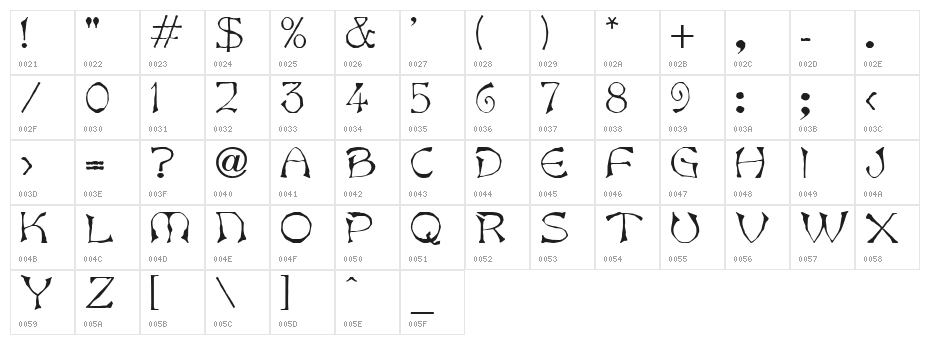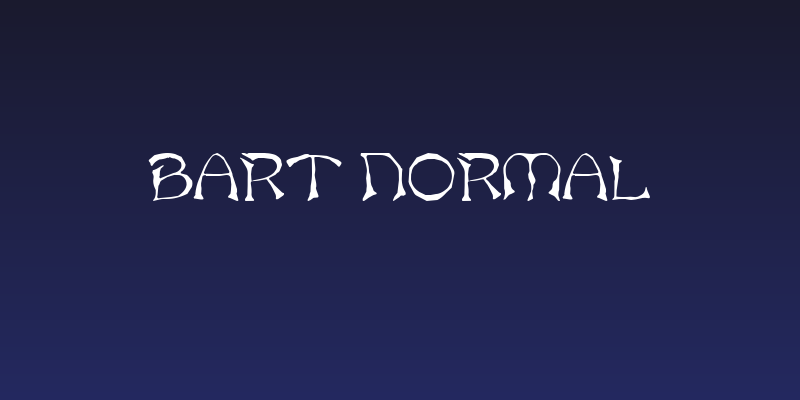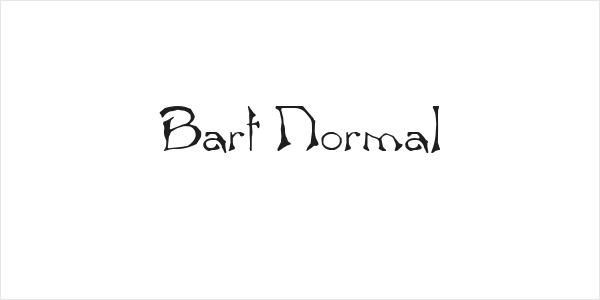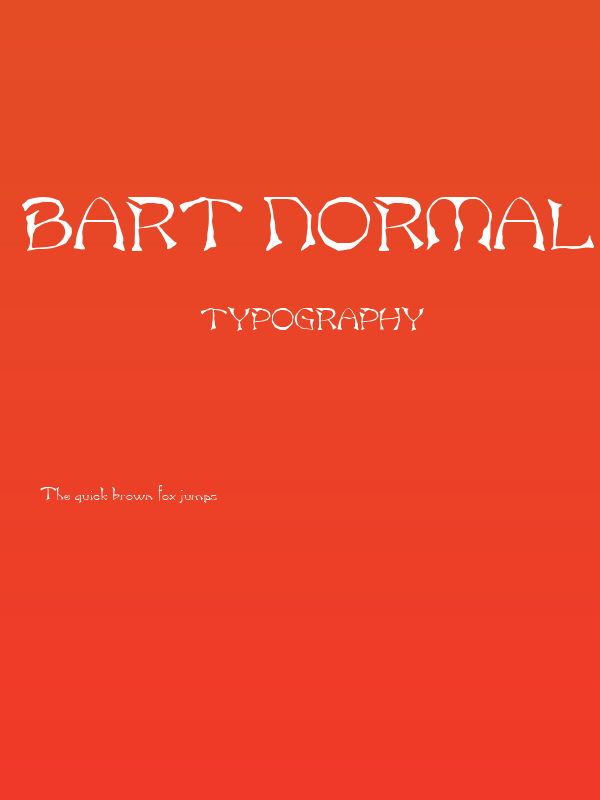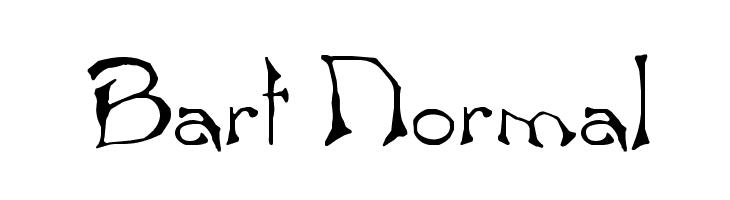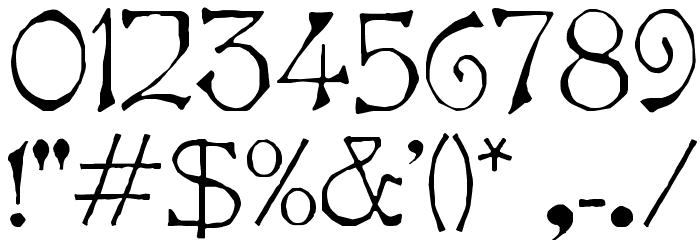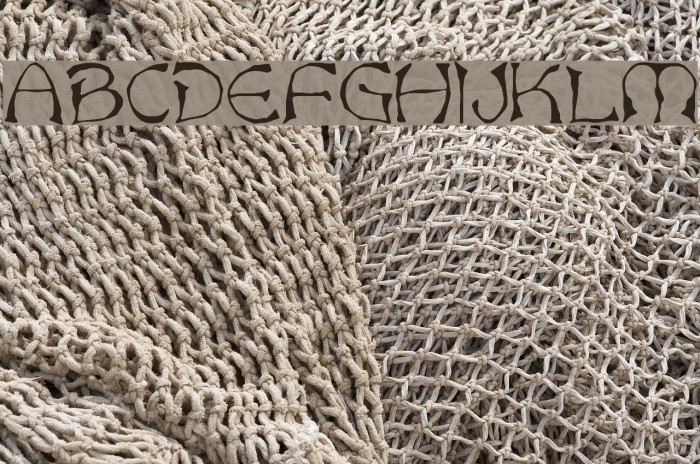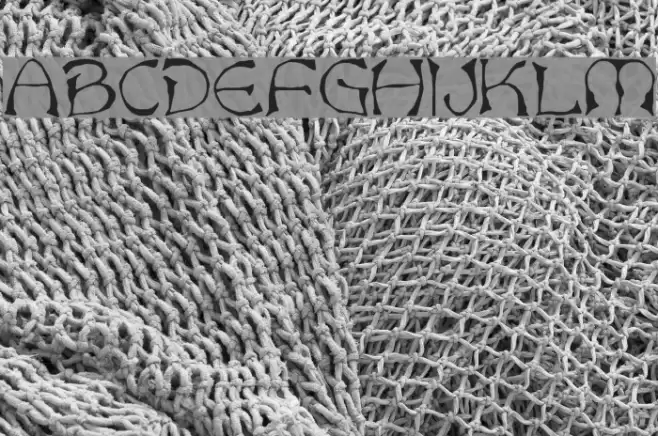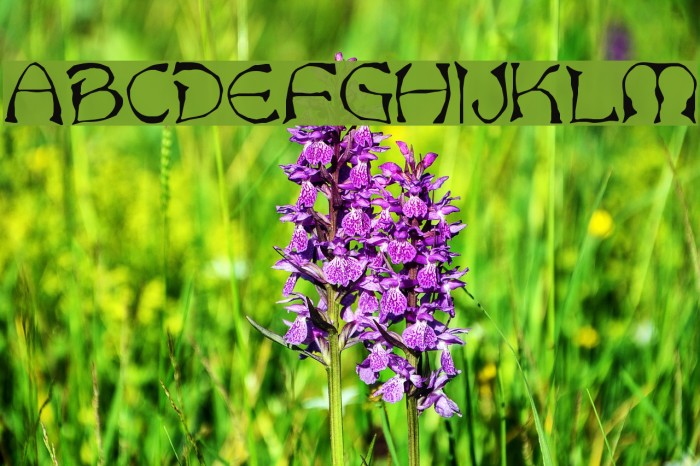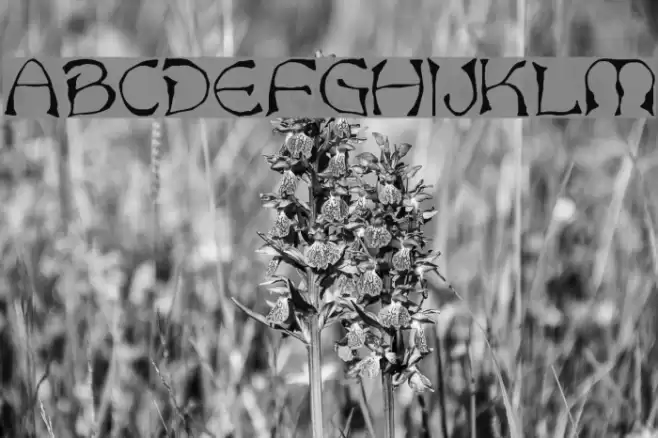
Bart Normal Font
Bart Normal Description
This font features a unique, artistic style with irregular, jagged edges that give it a hand-drawn appearance. The characters are bold and expressive, with varying stroke widths that create a dynamic and eye-catching look. The uppercase and lowercase letters maintain a consistent style, while the numbers and special characters complement the overall design. This font's distinctiveness makes it suitable for creative and unconventional projects, where a touch of individuality is desired.
| Overall Style | Artistic, Creative |
| Proposed Projects | Ideal for posters, album covers, artistic branding, and creative invitations. |